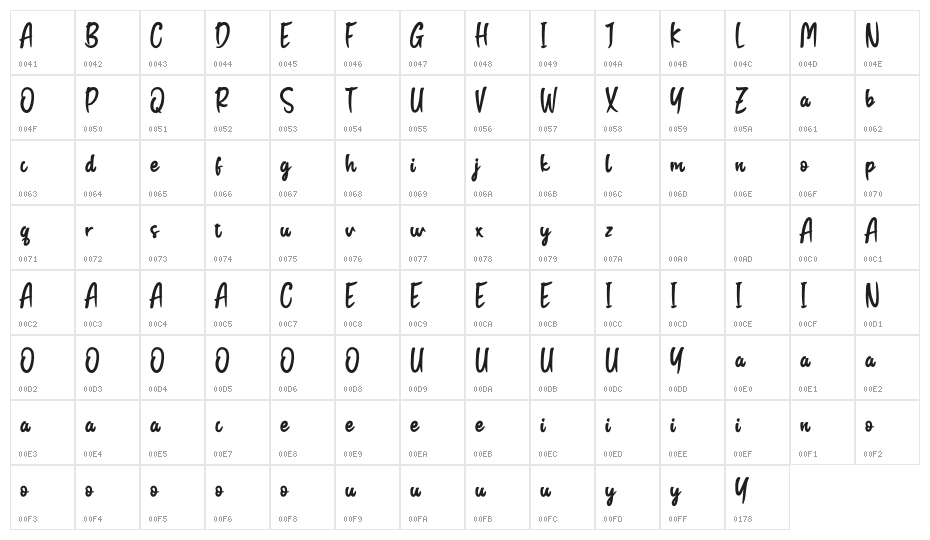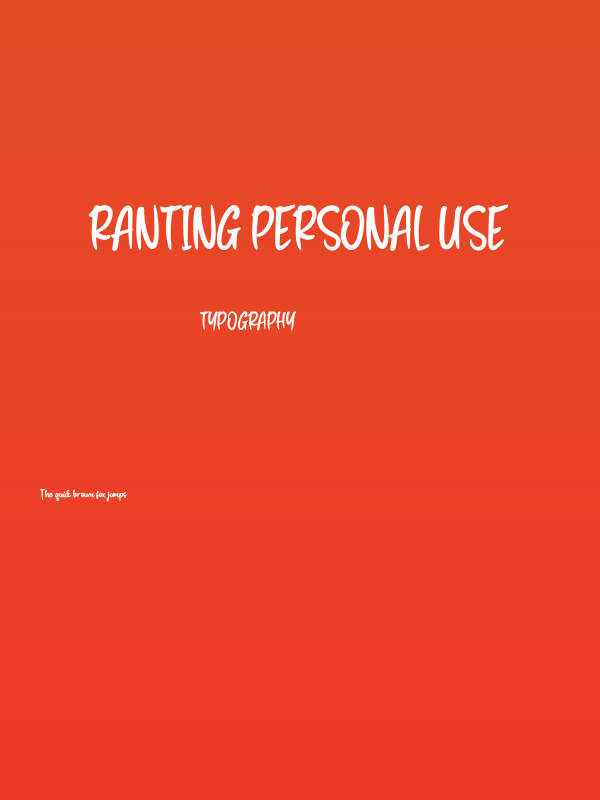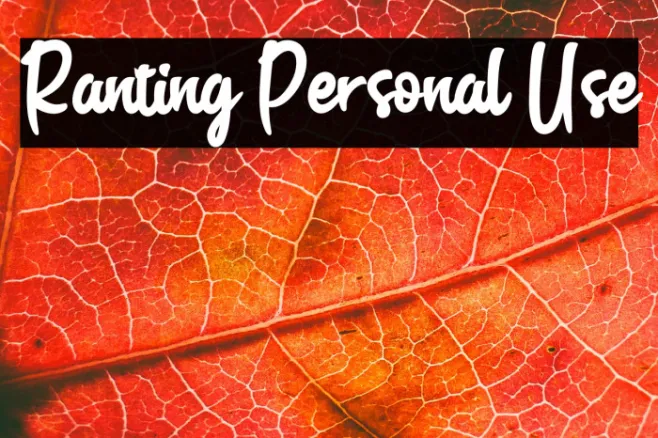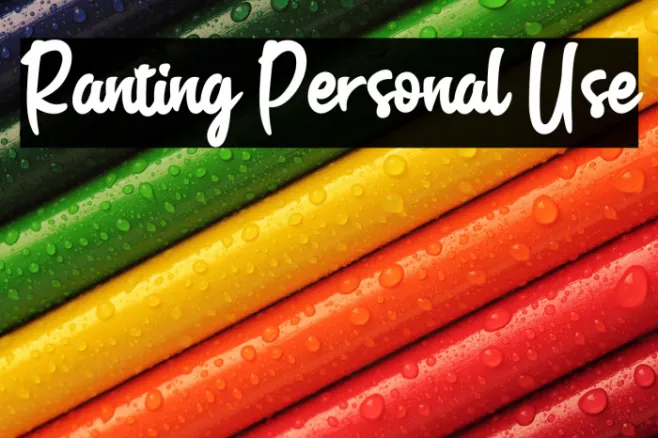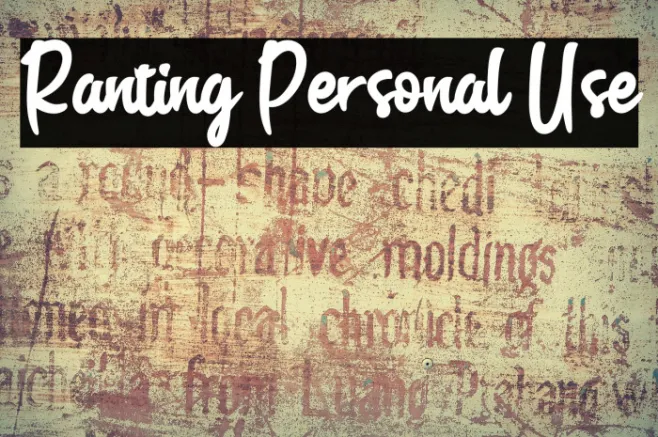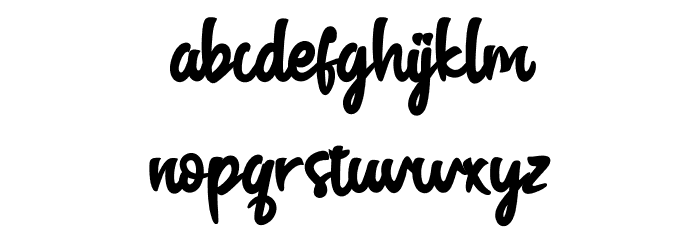
Ranting Personal Use Font
Ranting Personal Use Description
This font features a bold, handwritten style with a casual and playful appearance. The uppercase letters are tall and slightly narrow, with a consistent stroke width that gives a uniform look. The lowercase letters maintain the same playful style, with some characters having unique flourishes that add to the font's charm. The overall design is smooth and flowing, making it easy to read while still retaining a personal touch. This font lacks special characters, focusing instead on a complete set of uppercase and lowercase letters.
| Proposed Projects | Ideal for greeting cards, invitations, personal branding, and social media graphics. |